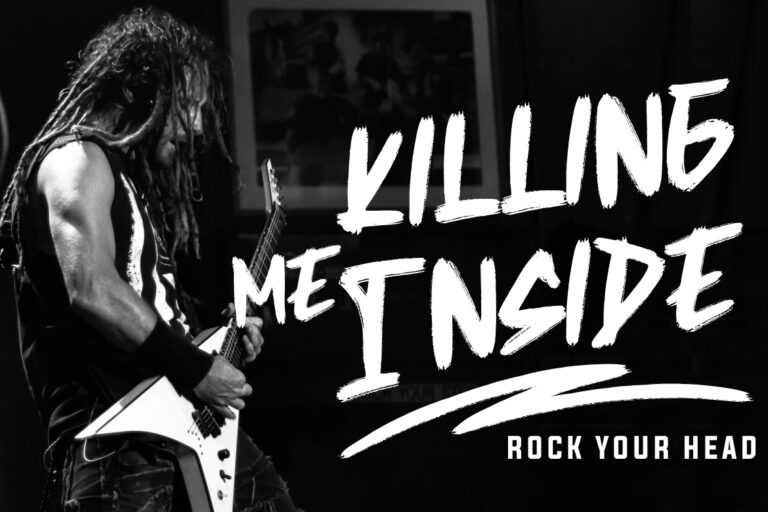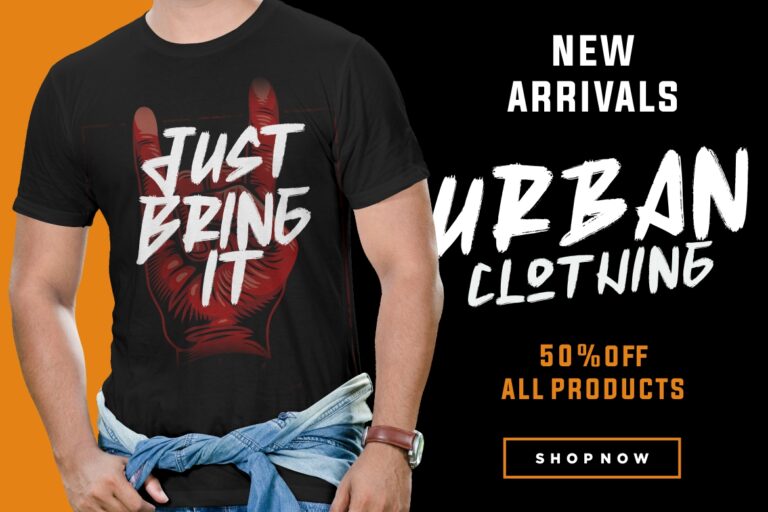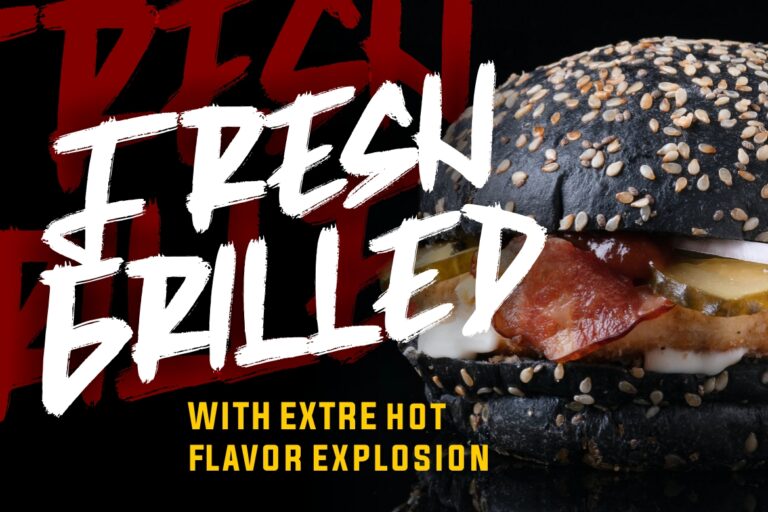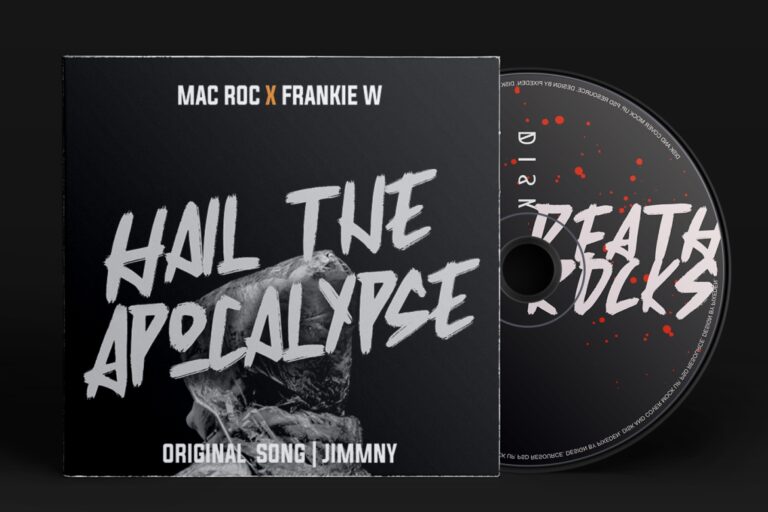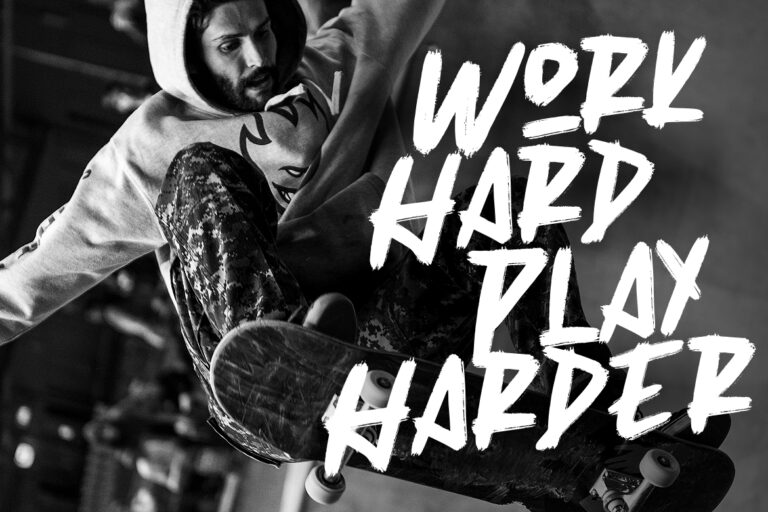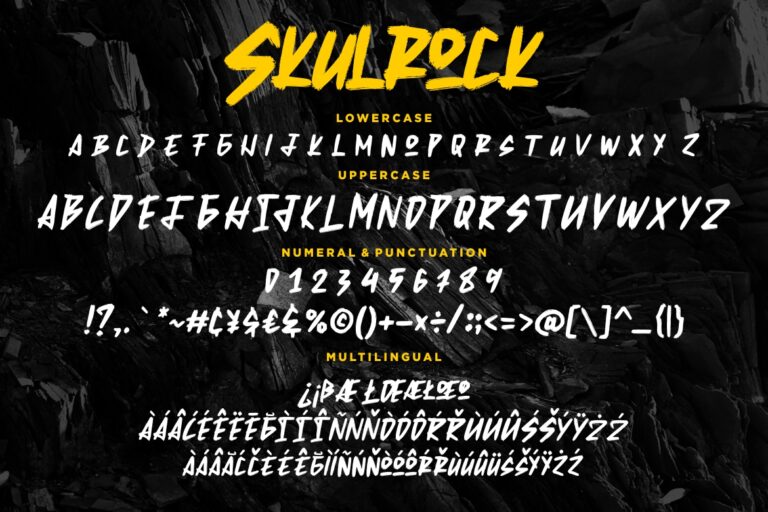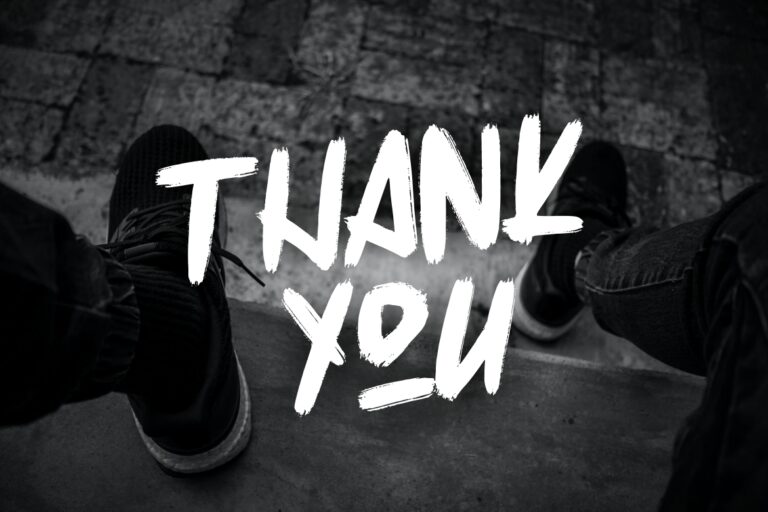
Skulrock is a hard display and rock & roll font for music concert events.
• Fonts include multilingual support for; ä ö ü Ä Ö Ü ß ¿ ¡
Skulrock Hard Display Typeface